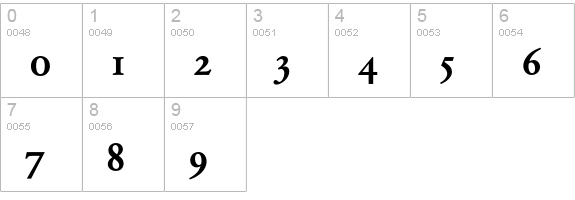
Garamond ExpBQ Medium Font Details
Garamond ExpBQ Medium is a balanced, medium-weight variant in the Garamond typeface family \xE2\x80\x94 well suited to sub-headlines, navigation, and balanced editorial work.
Garamond ExpBQ Medium font is a timeless and elegant typeface that exudes sophistication and refinement. Its classic design, characterized by its slender and graceful letterforms, makes it a perfect choice for any project that requires a touch of elegance. With its medium weight, Garamond ExpBQ Medium strikes the perfect balance between legibility and style. The clear and well-defined letter shapes make it ideal for both print and digital applications, ensuring that your message is delivered with clarity and professionalism. The versatility of Garamond ExpBQ Medium font is further enhanced by its extensive character set, which includes a wide range of punctuation marks, symbols, and diacritical marks. This allows you to effortlessly express your ideas and communicate effectively in any language. One of the most appealing aspects of Garamond ExpBQ Medium font is that it is freely available to download at FontsMarket.com. This means that you can easily access and use this beautiful typeface in your design projects without any cost or restrictions. Whether you are designing a logo, creating a brochure, or working on a website, Garamond ExpBQ Medium font will add a touch of sophistication and professionalism to your work. Its timeless beauty and versatility make it a must-have in any designer's toolkit. So why wait? Go ahead and download Garamond ExpBQ Medium font from FontsMarket.com and elevate your designs to new heights.